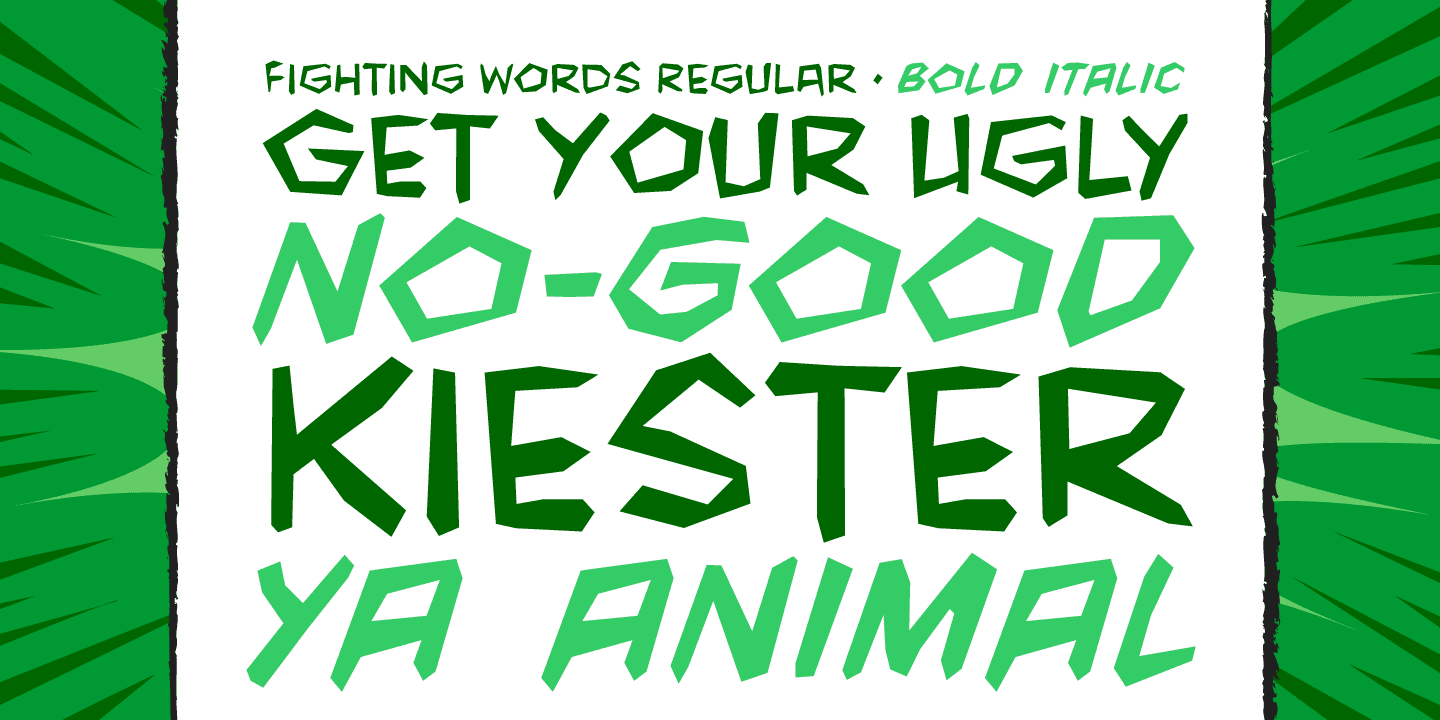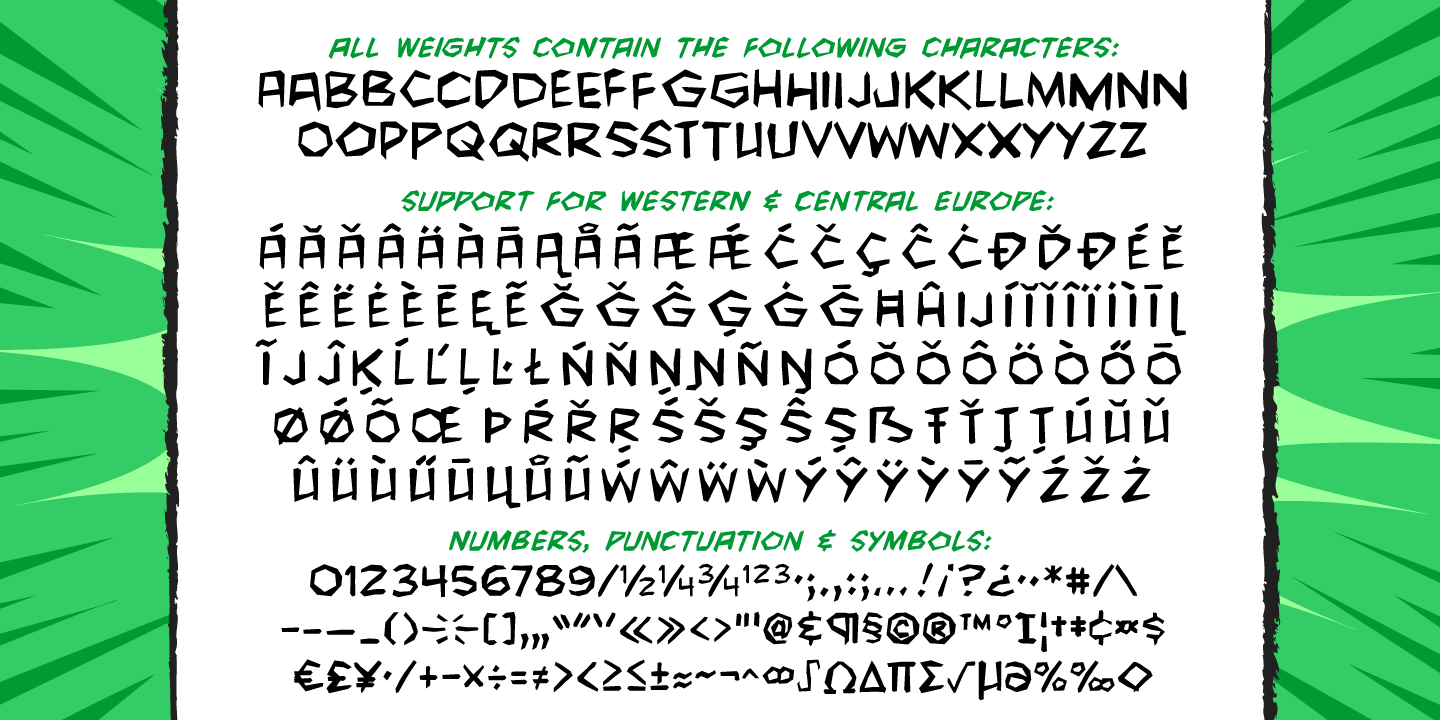
Fighting Words
Font Family by Comicraft Fonts
Buy NowHulk mad. Hulk so mad, Hulk broke font. Puny Comicraft no like mashed up font! Hulk no care. Hulk like to talk like Hulk has mouth full of marbles. Hulk smash! Get YadaYadaYada with FightingWords and Hulk promise not punch your lights out.